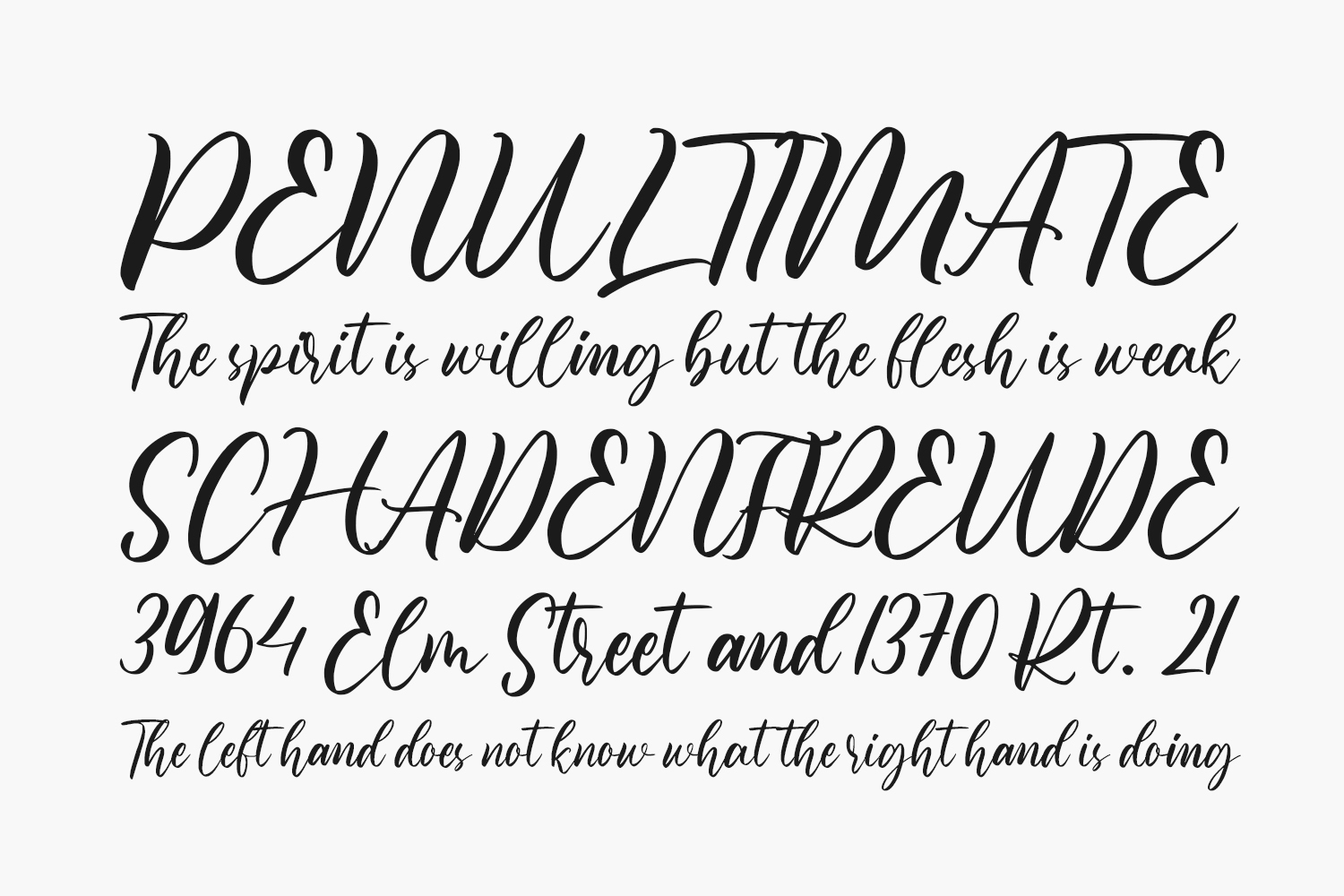
Destiney Free Font feels equally dazzling and adaptable. It looks beautiful on any design requiring a customized touch, such as wedding invitations, thank you cards, quotes and so much more. Destiney Free Font was designed by FatmaStudio and is free for personal use only. Please purchase the full version for commercial use.